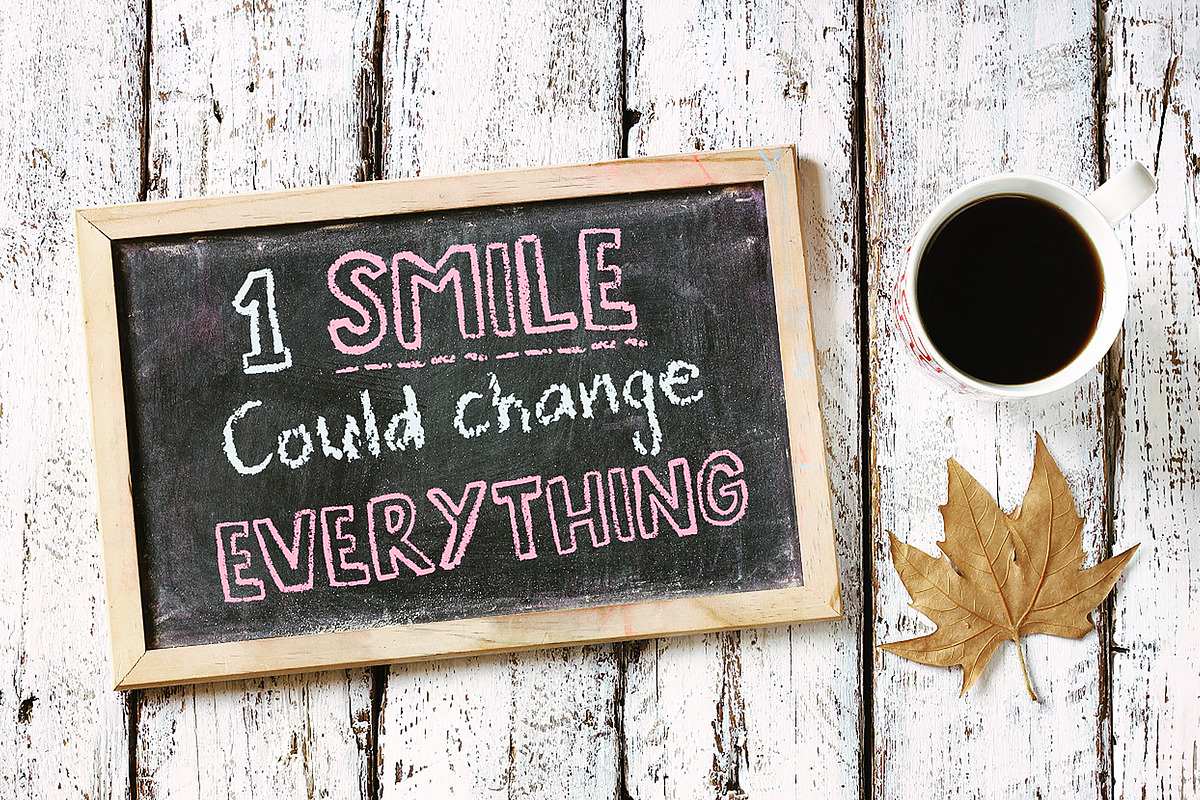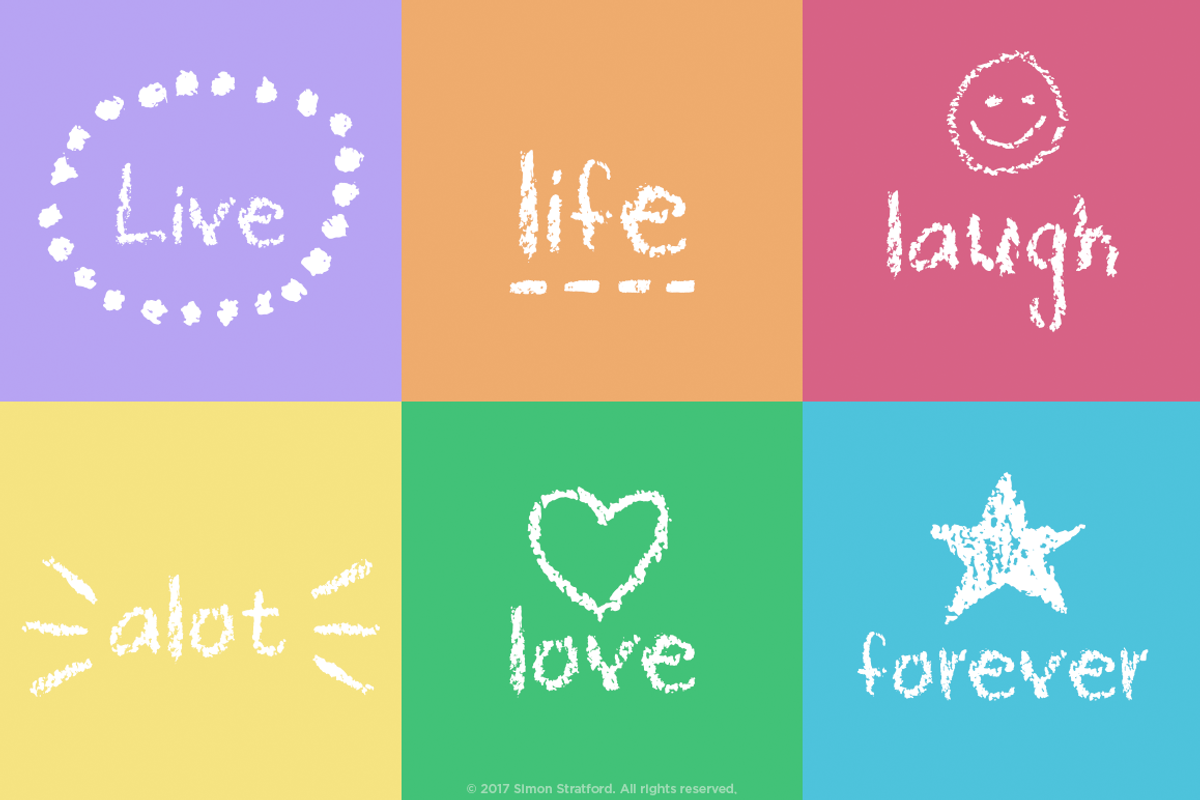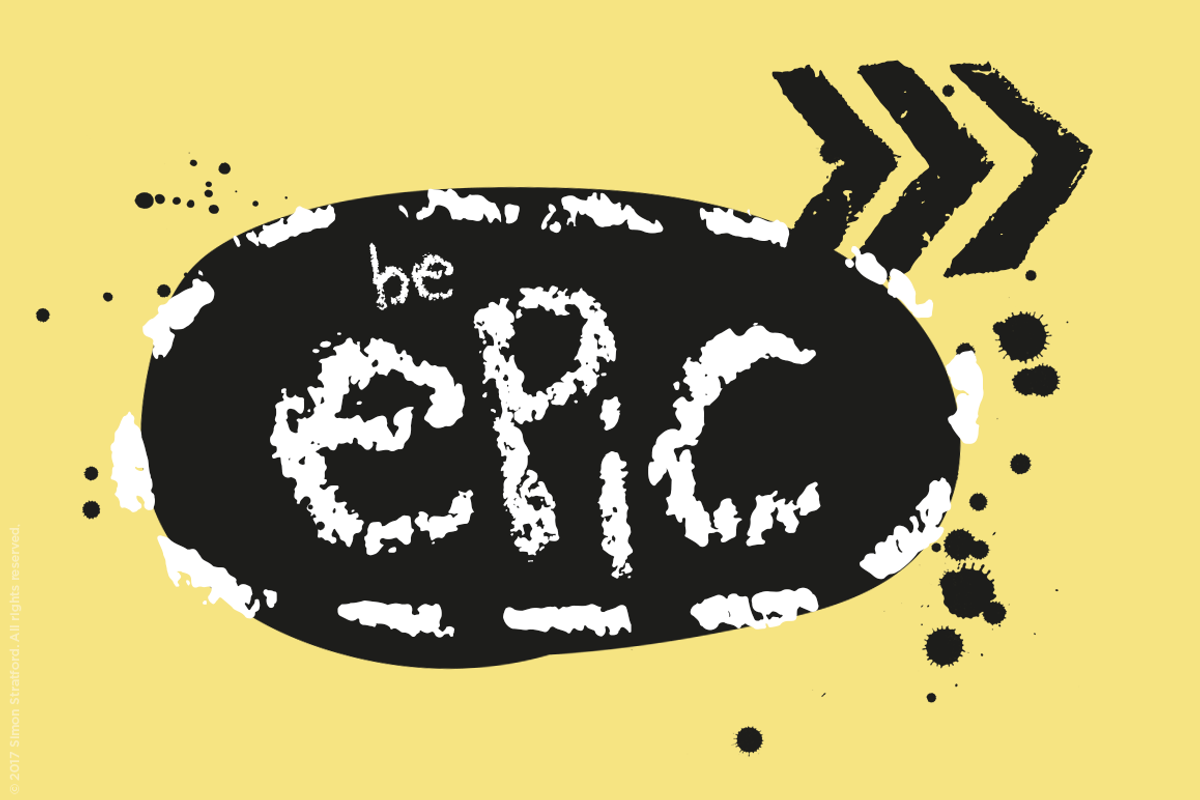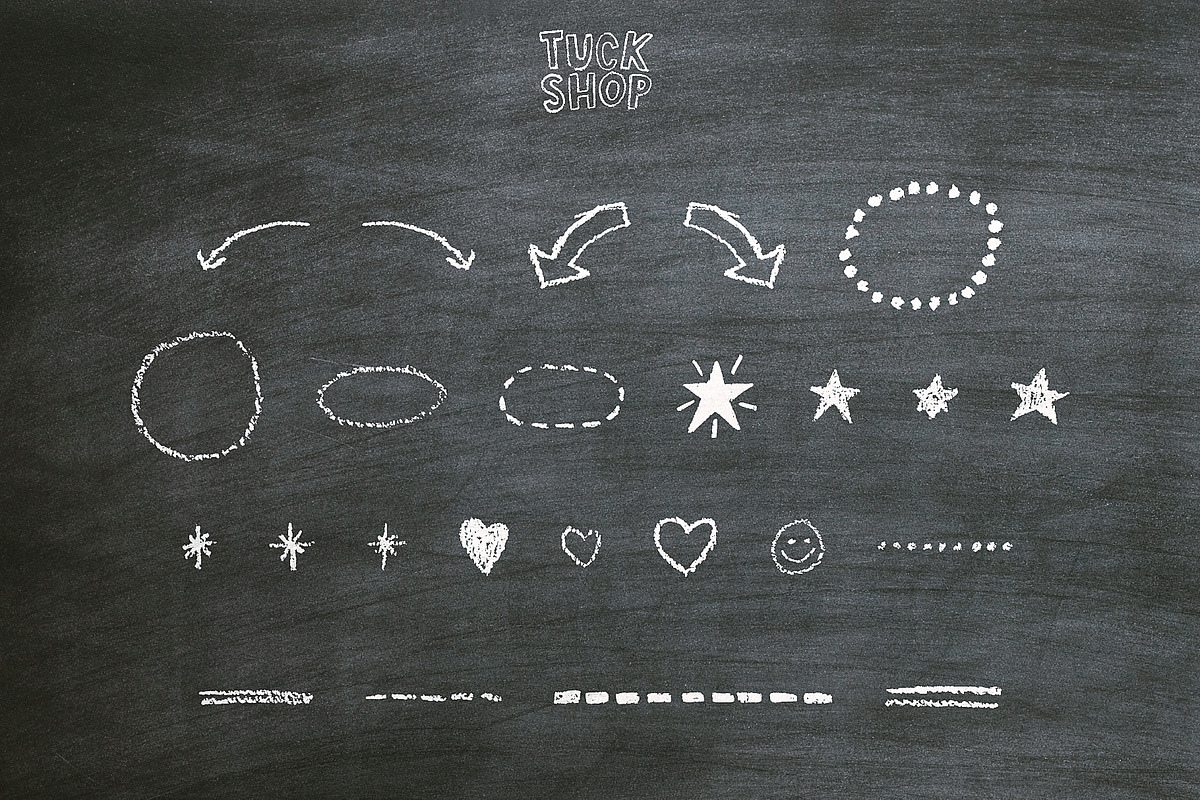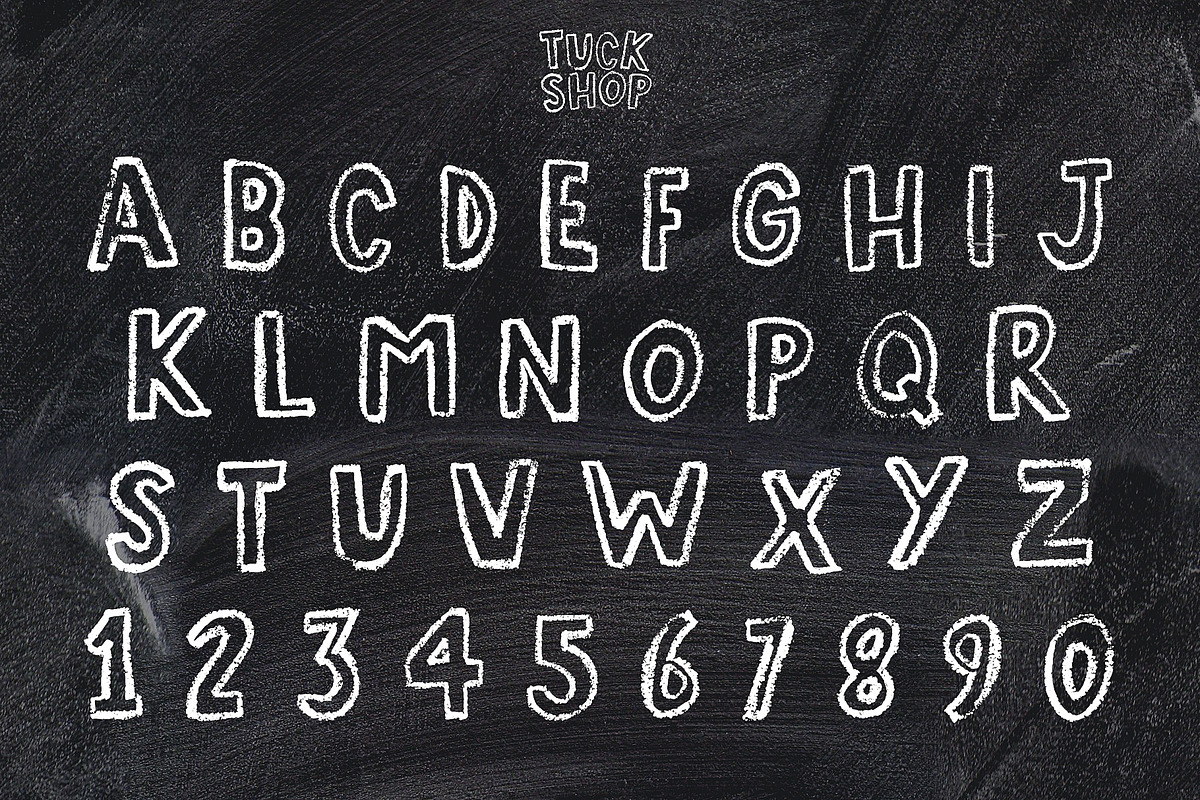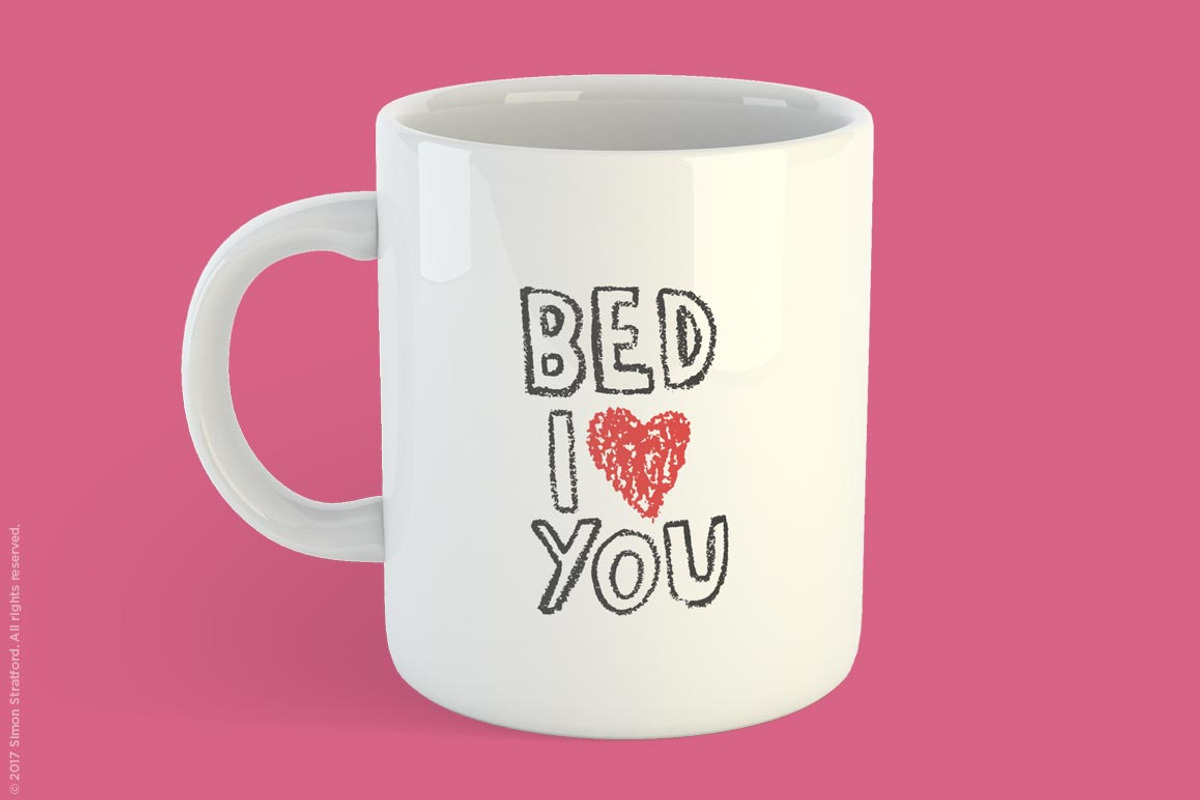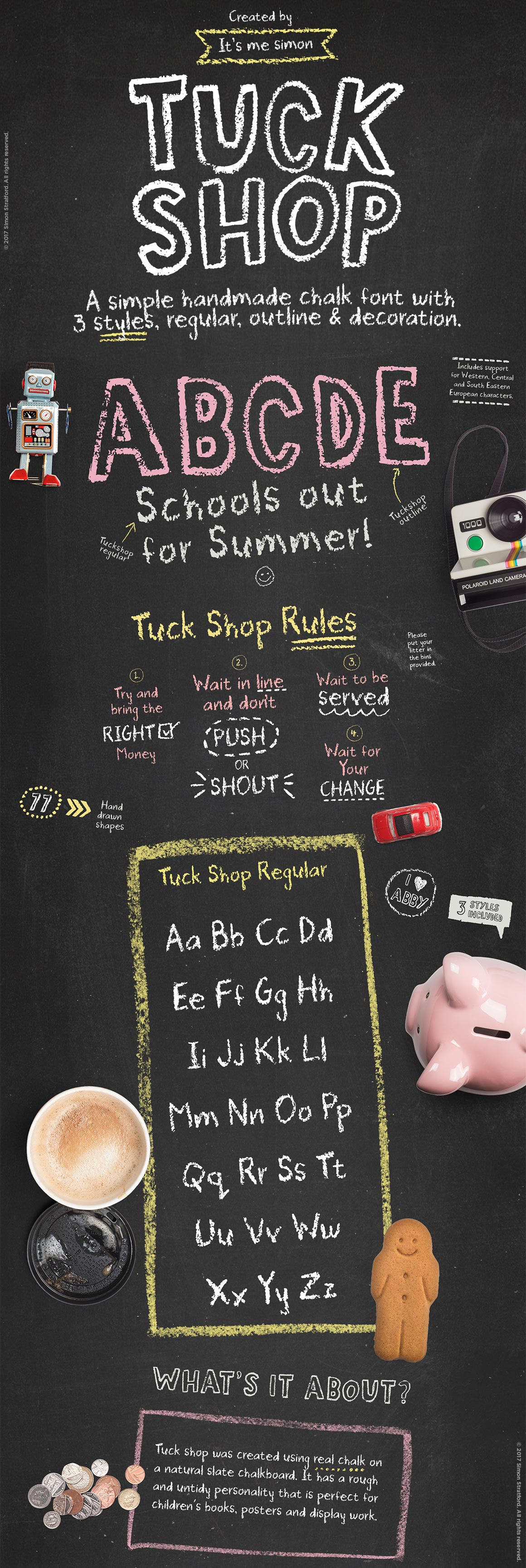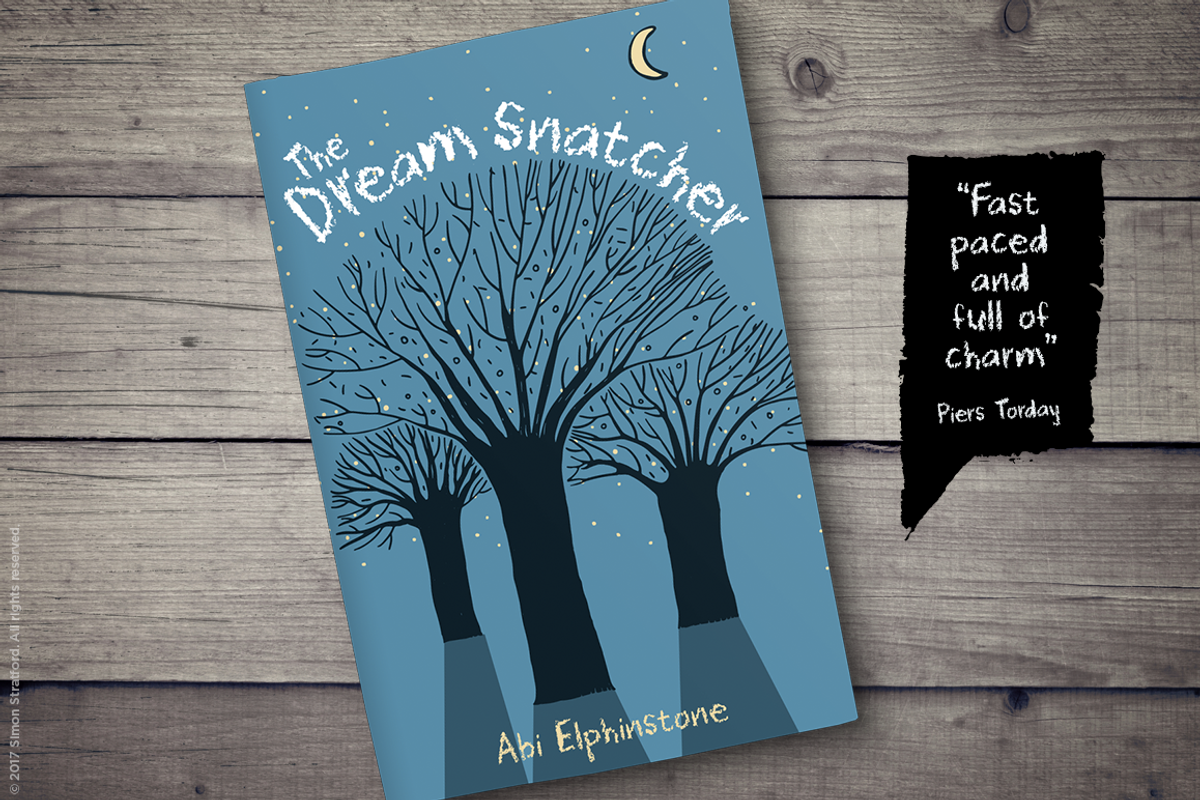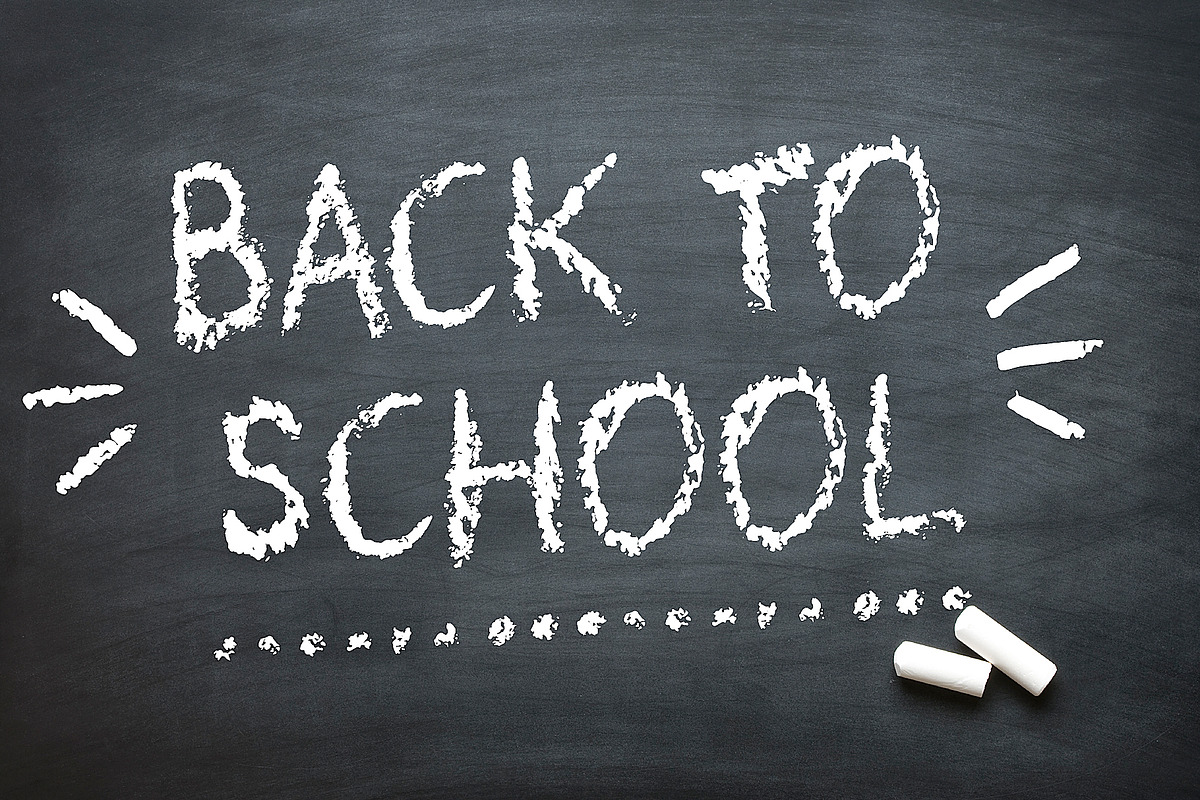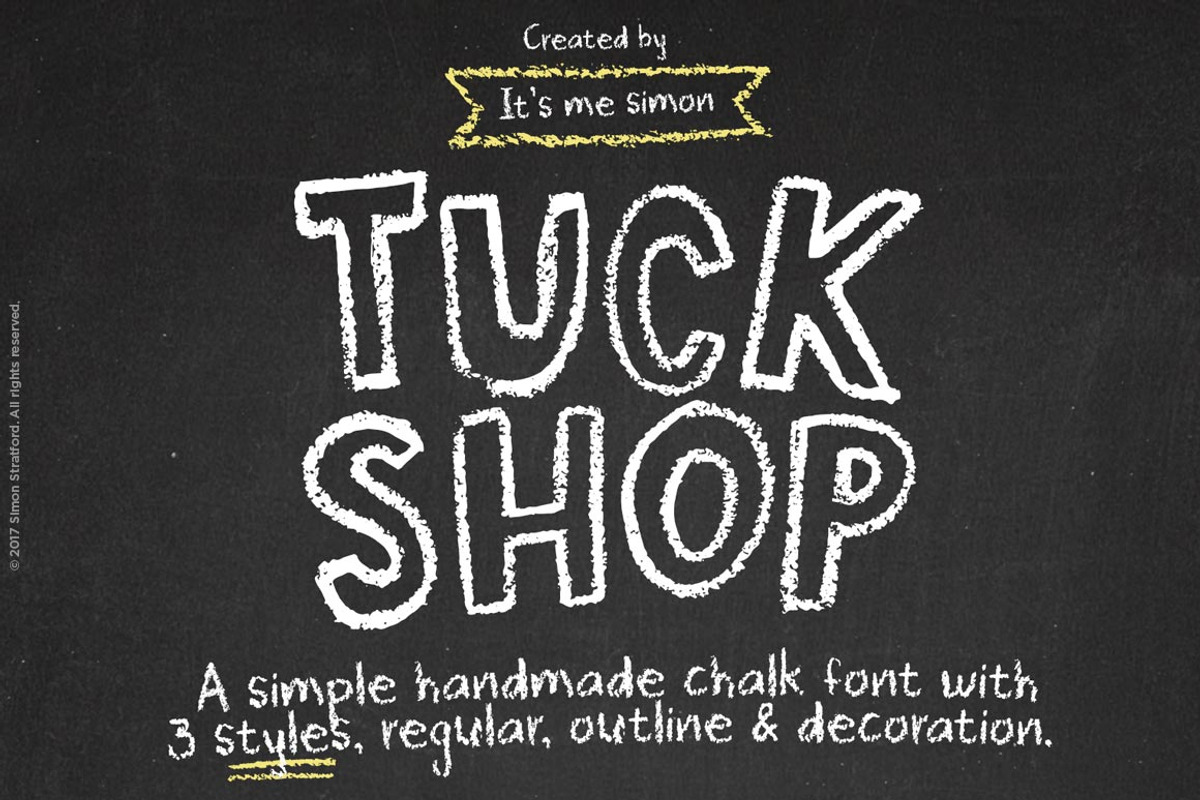
Chalkboard font Tuck Shop display
Tuck shop was handmade using real chalk and a natural slate chalkboard. It has a tremendous amount of fine detail and texture that you don't see in other chalk fonts.
It's a display chalk font with a childlike, naive personality. Because it was hand drawn with real chalk, it's rough, untidy and messy but that adds to its fun sketch like charm.
It reminds me of school and those chalkboards outside coffee shops, restaurants, bars and pubs. It's a perfect font to get that vintage handwritten store sign look.
The outline chalk style would also be ideal for children’s books, Bullet Journals, packaging, and posters as it's a fun and casual. It would be grand for any project that requires chalk or chalkboard look and feel.
So to recap the Tuck shop chalkboard font has three styles, regular outline and decoration. The decoration style is a set of ornaments, 77 in total. Covering everything from stars and speech bubbles to arrows and dashed underlines—I'm sure it ’ll have something handy for you to use.